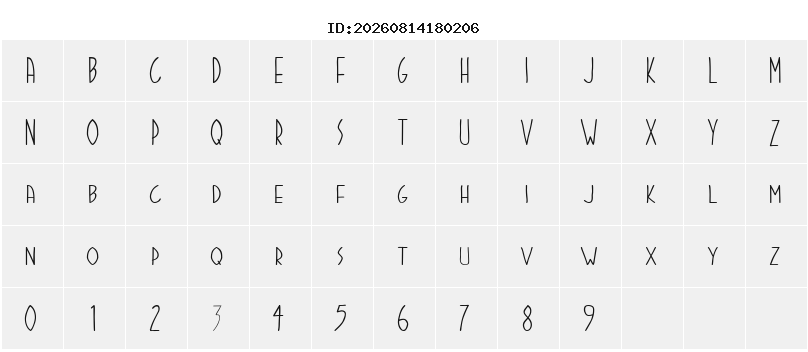
Stigmata Preview
• Font Name: Stigmata
• Full Font Name: Stigmata
About Stigmata.ttf
Stigmata.ttf is a modern, elegant sans-serif font designed for ultimate readability and visual harmony. Perfect for branding, headlines, web design, and print materials.